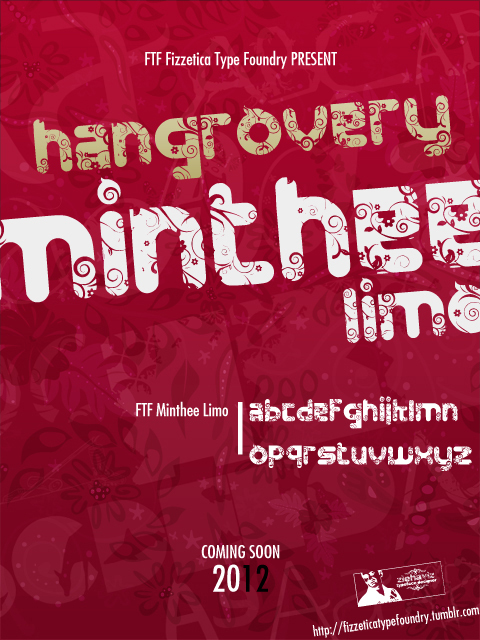
FTF Minthee Limo by Abdul Hapiz Hilman of Fizzetica Type Foundry DepokAsiana is a free curly decorative display font with oversized, rounded letterforms. Dense silhouettes are carved through with white vine curls, leaf shapes, and small floral details, turning each character into a compact piece of ornament.
Its swirling botanical style points toward ornate fashion and beauty graphics. It is especially suited to perfume packaging, boutique branding, and event posters, where the patterned interiors can echo decorative borders or floral artwork. On album covers and merchandise, the letters can function as illustrated emblems, giving a brand or artist a recognizable ornamental signature.
FTF Minthee Limo version 2 is the solid-font variant.